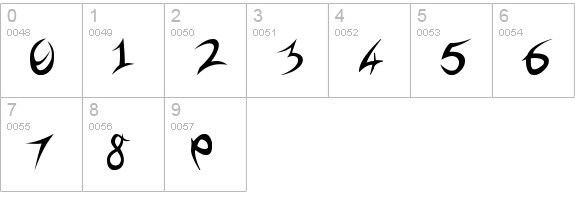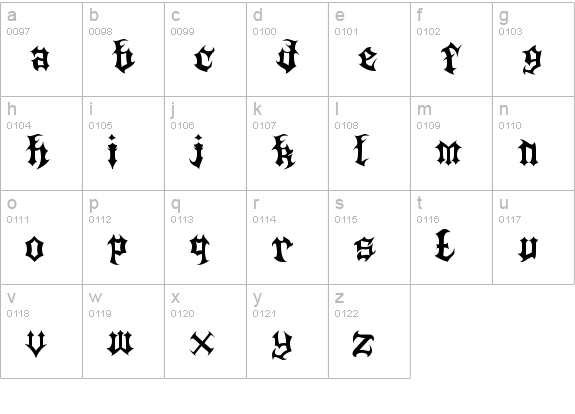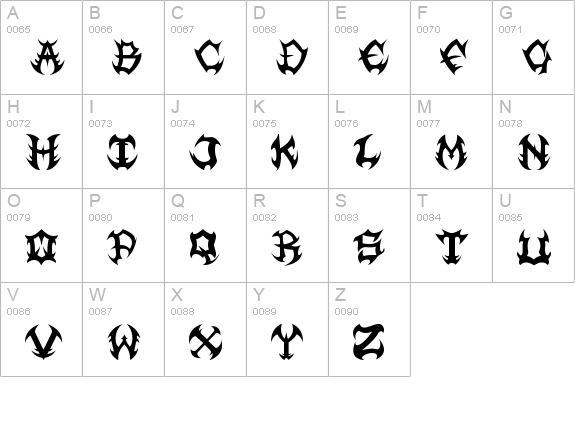
Death Metal Font Details
Introducing the Death Metal font, a captivating and intense typeface that perfectly encapsulates the raw power and brutal energy of the death metal genre. This font is the ultimate choice for any design project that requires a dark and edgy aesthetic, be it album covers, band logos, merchandise, or posters. With its jagged and sharp letterforms, the Death Metal font exudes a sense of aggression and rebellion that is synonymous with the genre. Each letter has been meticulously crafted to embody the chaotic and unapologetic nature of death metal, making it the ideal companion for expressing the untamed spirit of your creative endeavors. What sets the Death Metal font apart is not only its striking appearance but also its accessibility. It is available for free download exclusively at FontsMarket.com, allowing aspiring artists, designers, and musicians to unleash their creativity without any barriers. This font is a gift to the creative community, enabling them to experiment with typography and bring their visions to life. Whether you're a die-hard metalhead or simply someone seeking a font that breaks the conventional norms, the Death Metal font is a must-have in your design arsenal. Its versatility and boldness offer endless possibilities for creating captivating and unforgettable visuals. Don't miss out on this opportunity to download the Death Metal font freely at FontsMarket.com and let your imagination run wild. Unleash the power of death metal typography and make a statement that will leave a lasting impression.